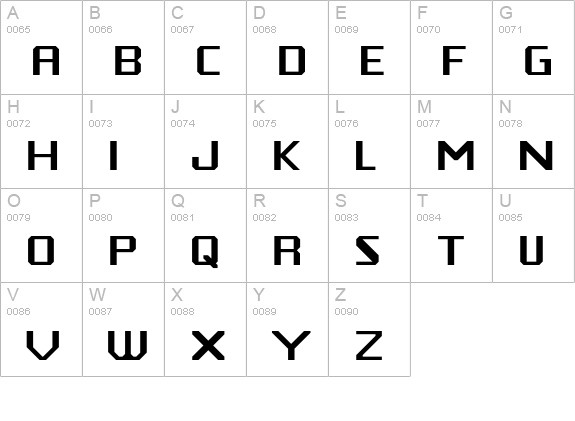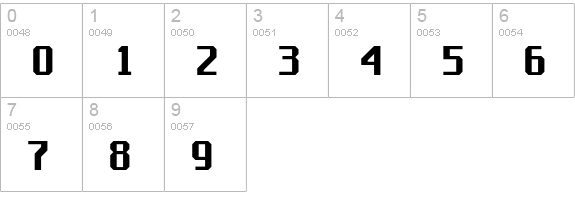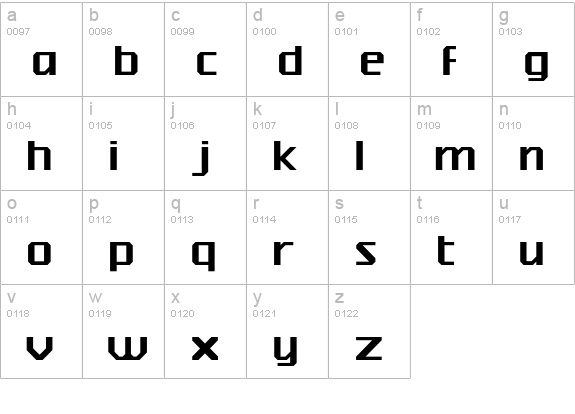
Silicon Font Details
Introducing Silicon Font, a modern and versatile typeface that embodies the perfect blend of elegance and innovation. Designed to meet the demands of today's digital world, Silicon Font offers a sleek and futuristic aesthetic that is bound to captivate and inspire. With its clean lines and geometric shapes, Silicon Font exudes a sense of sophistication and professionalism. Its bold and dynamic presence makes it ideal for a wide range of design projects, from branding and advertising to web and app interfaces. Whether you're creating a cutting-edge website or designing a sleek logo, Silicon Font will effortlessly elevate your work to the next level. But what sets Silicon Font apart is not just its impeccable design, but also its accessibility. This font is available for free download exclusively at FontsMarket.com. We believe that great design should be accessible to all, and that's why we have made Silicon Font freely available for anyone to use and enjoy. By offering Silicon Font as a free resource, we hope to empower designers, entrepreneurs, and creatives of all backgrounds to bring their visions to life without any limitations. Whether you're a seasoned professional or just starting out, Silicon Font is here to help you make a lasting impression. So don't miss out on this incredible opportunity to get your hands on Silicon Font. Visit FontsMarket.com today and download this stunning typeface for free. Unleash your creativity and let Silicon Font be your secret weapon in creating unforgettable designs.